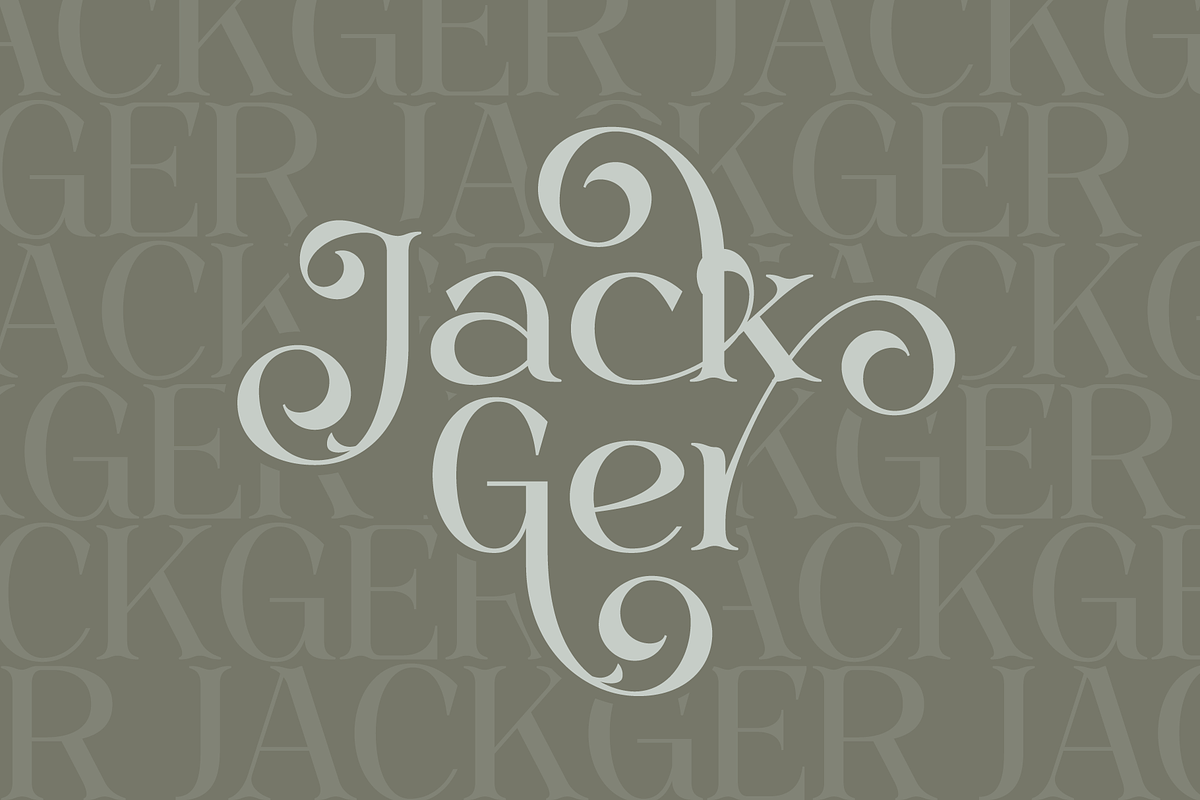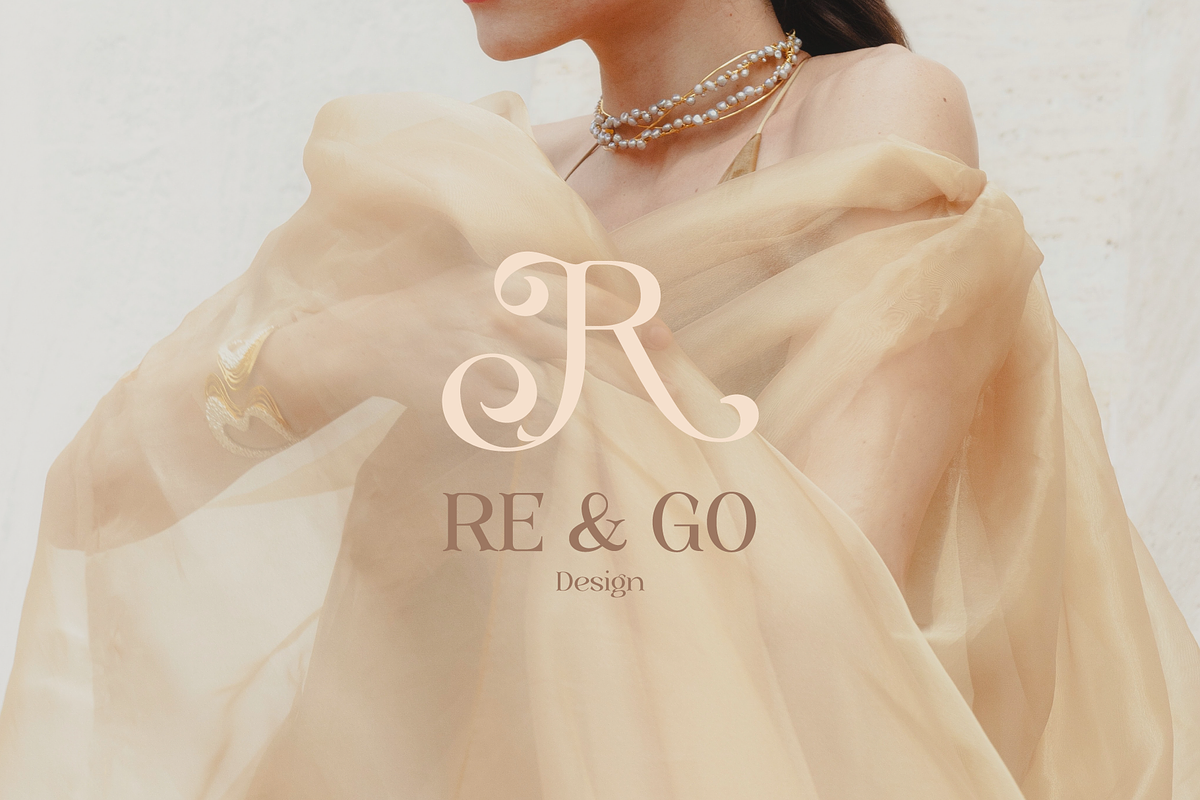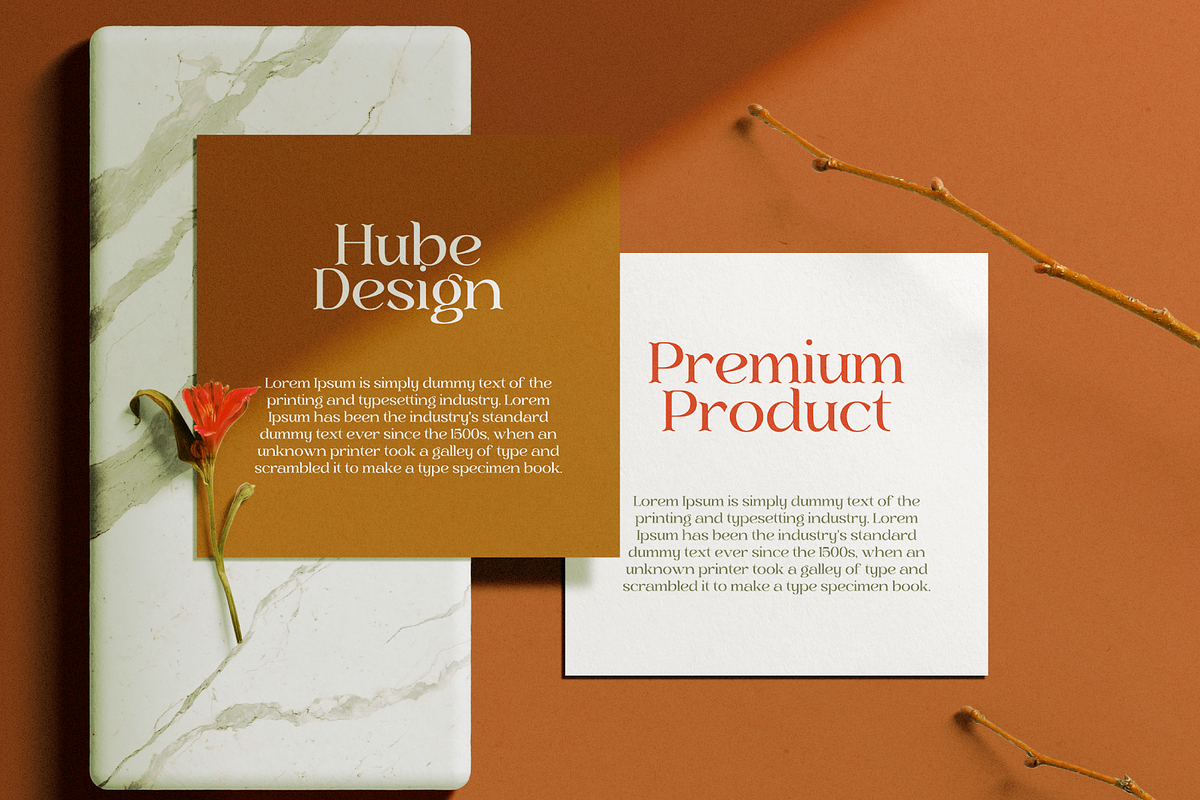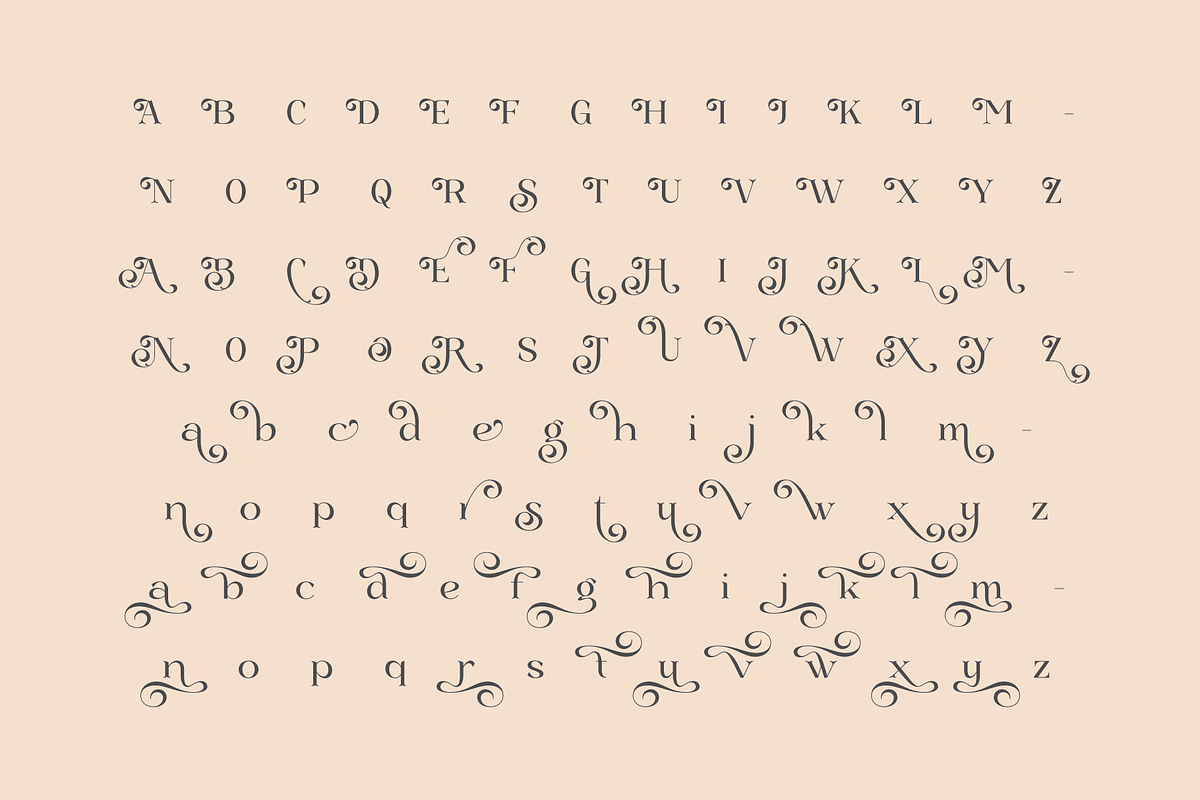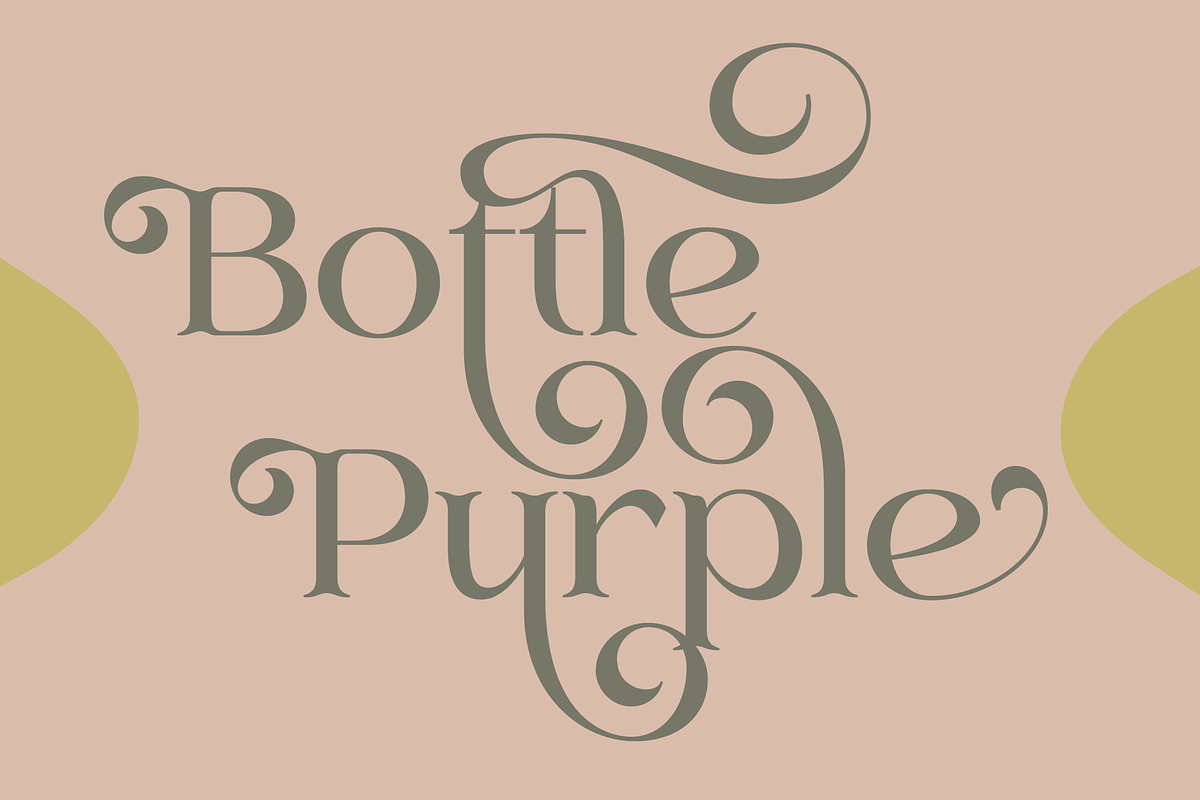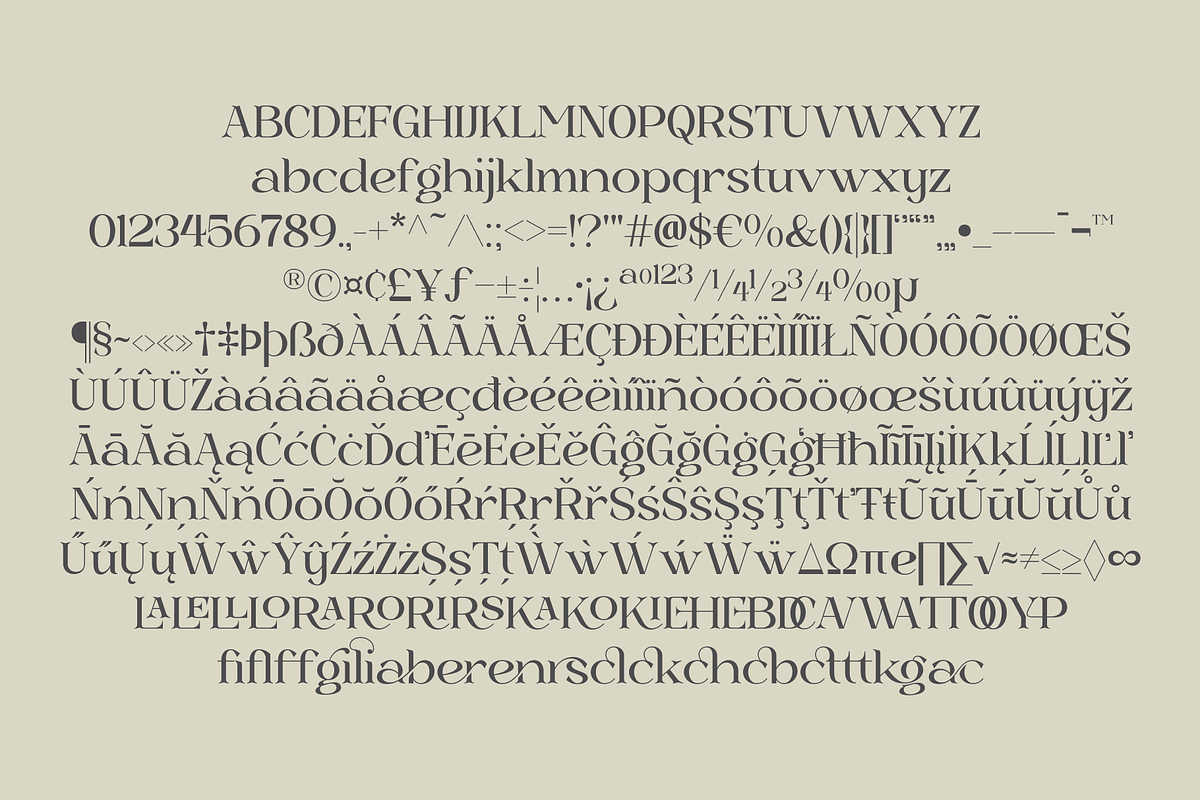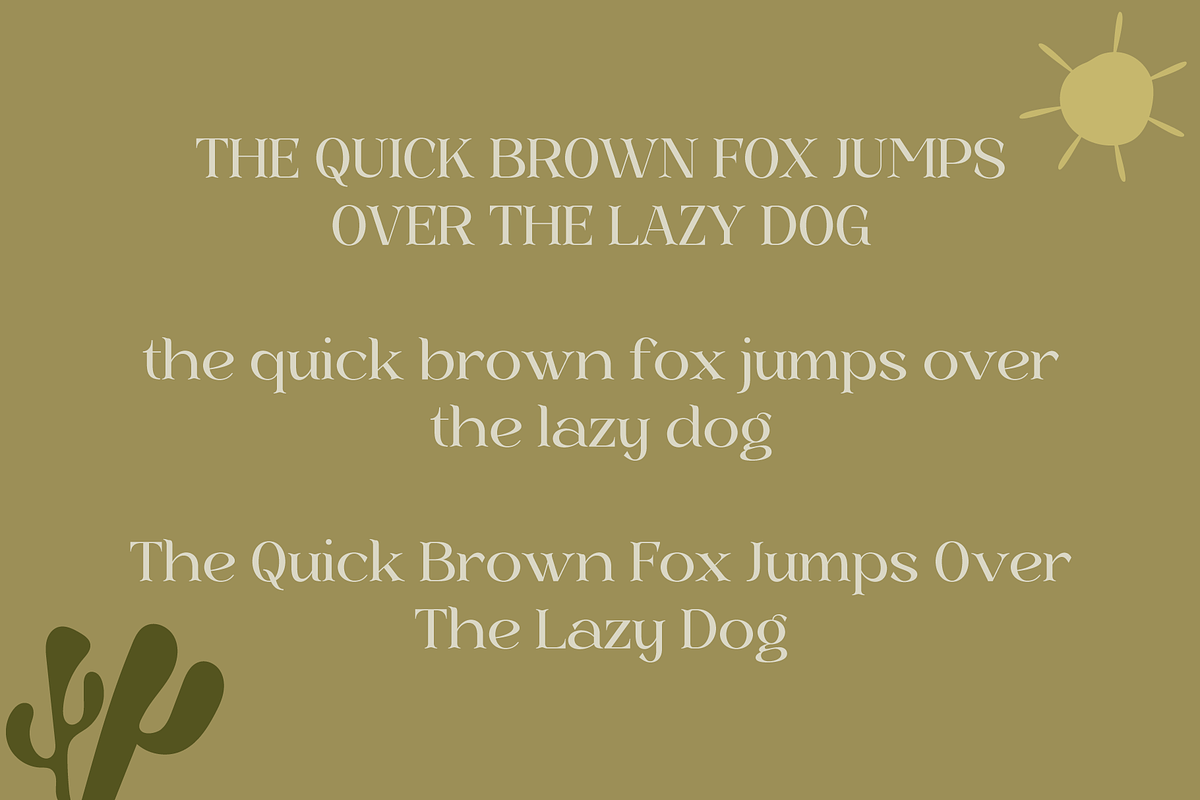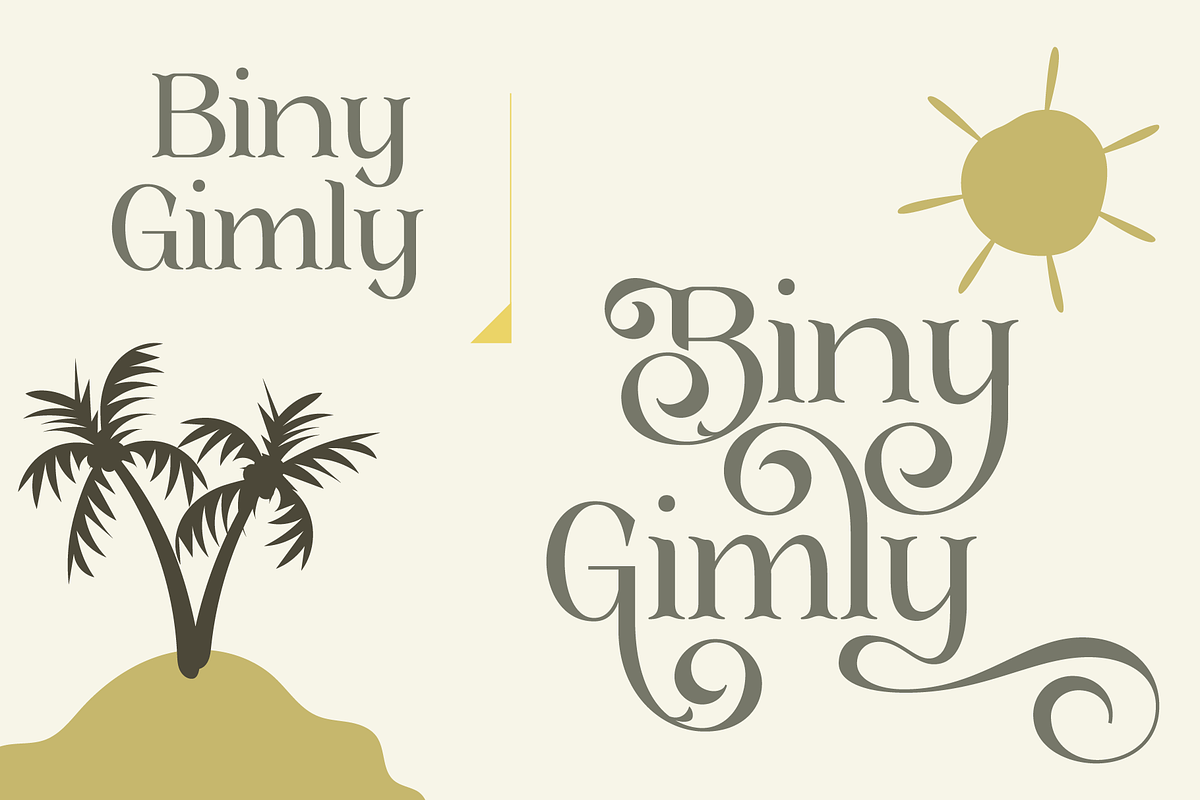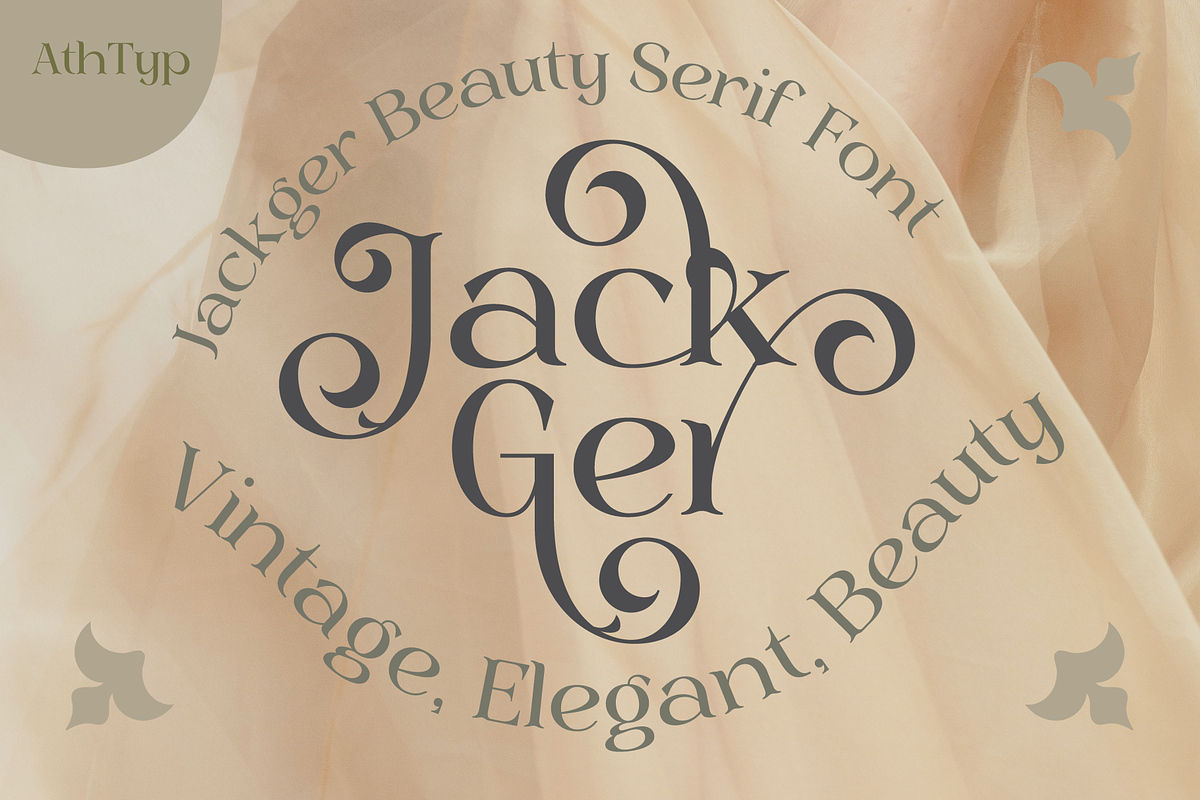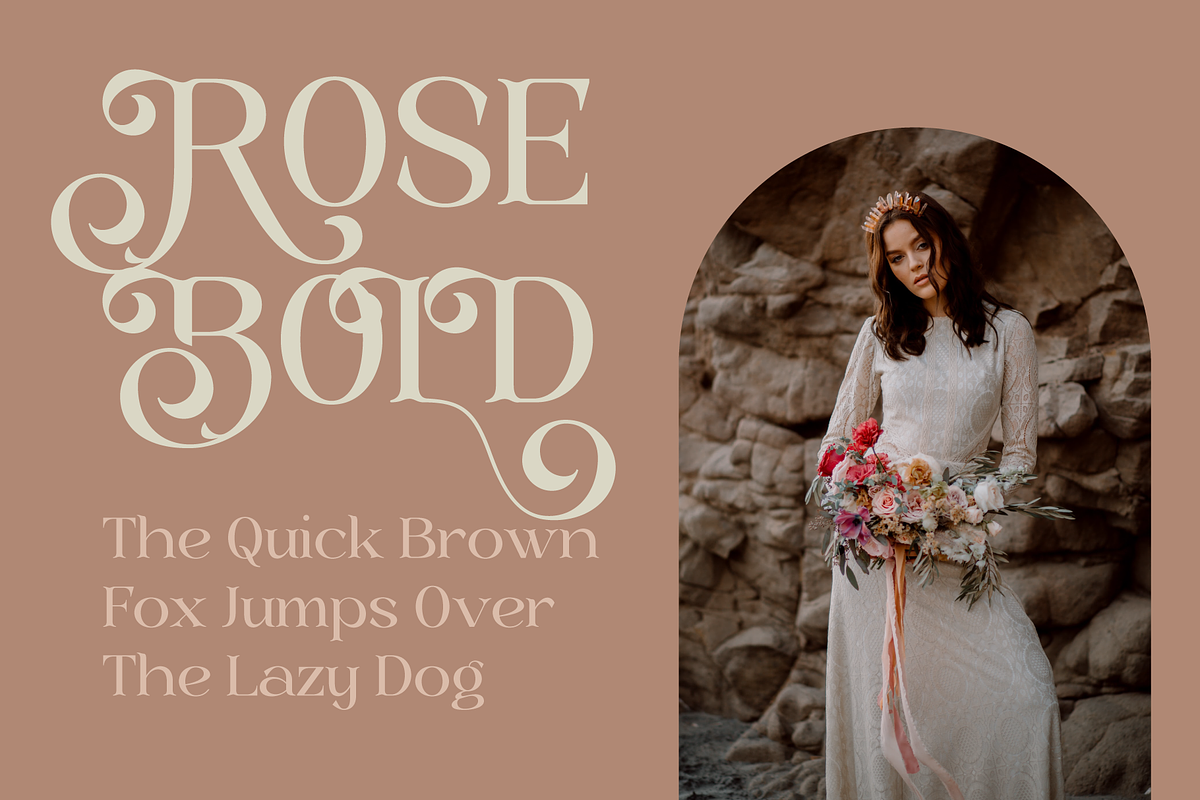
Jackger Beauty Serif
Jackger Beauty Serif is a elegant and refined font, perfect for adding sophistication to any design project. With its unique serifs and smooth lines, Jackger Beauty Serif is a versatile font that can be used for various purposes such as branding, headlines, invitations, and more.
This font is easily readable at small sizes and comes in stylistic set to give your designs a touch of luxury. Download Jackger Beauty Serif now and elevate your next project with its timeless beauty.